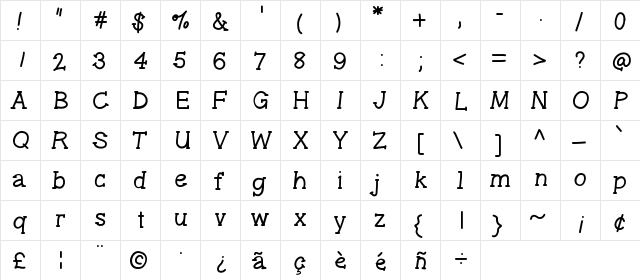
GelPenSerifLight Light
Design Context for GelPenSerifLight Typeface
GelPenSerifLight brings classic typographic sensibility to the table — its serifs and measured letterforms reflect centuries of print heritage. The delicate stroke weight brings airiness and refinement to layouts.
Pro Tip: Set GelPenSerifLight at slightly larger body copy sizes than you would a regular-weight serif to compensate for its delicate stroke contrast.